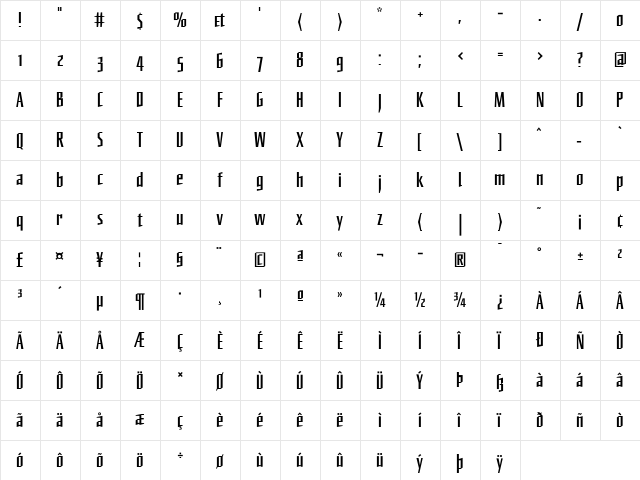
Primary Bold
Design Context for Primary Typeface
Primary is a composed and adaptable typeface that performs quietly and consistently across a wide range of design contexts. The heavy weight commands attention and anchors typographic hierarchies.